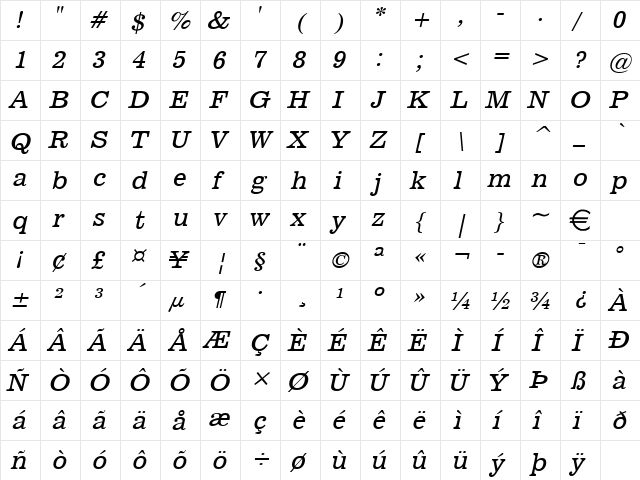
Broadcast Italic
Design Context for Broadcast Typeface
Broadcast takes a measured approach to typography — its balanced proportions and neutral character make it a reliable workhorse for both digital and print work. The slanted form adds forward momentum and visual energy.